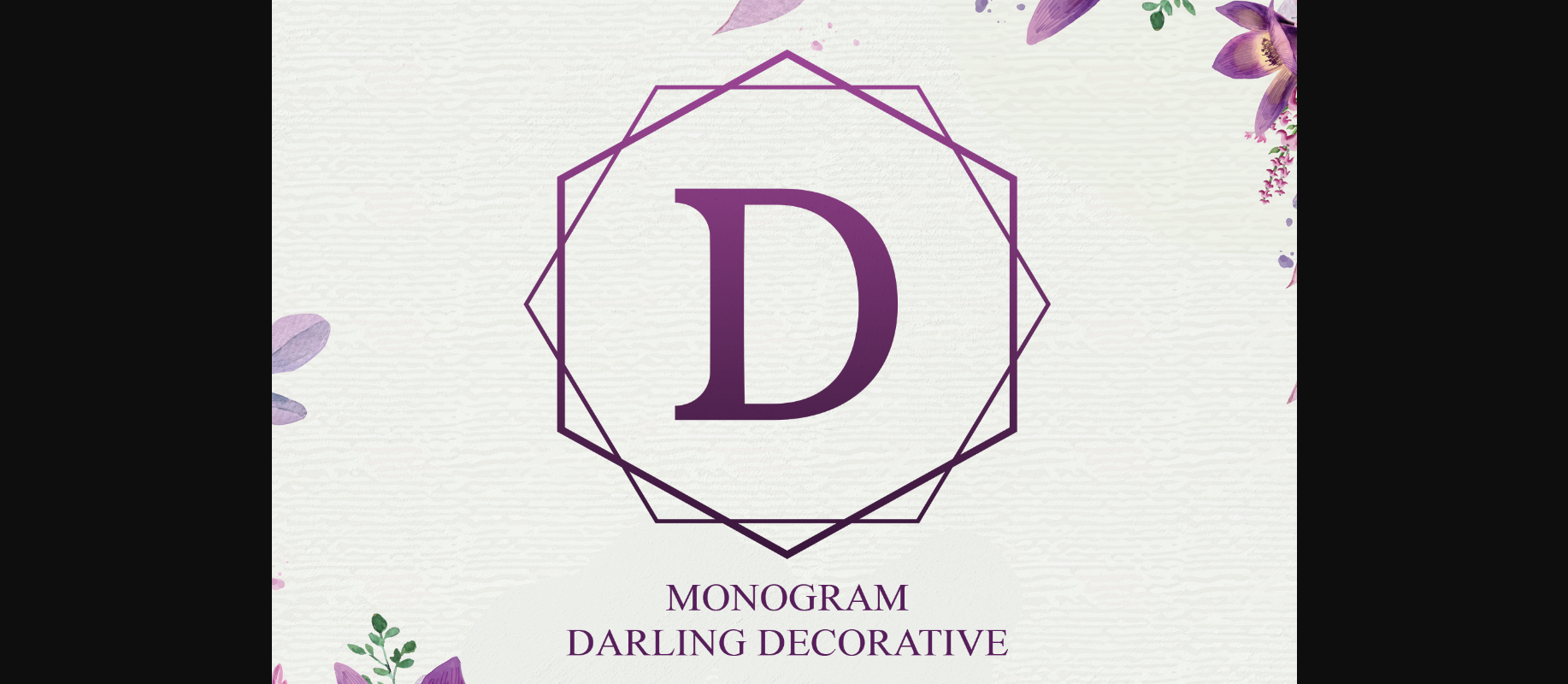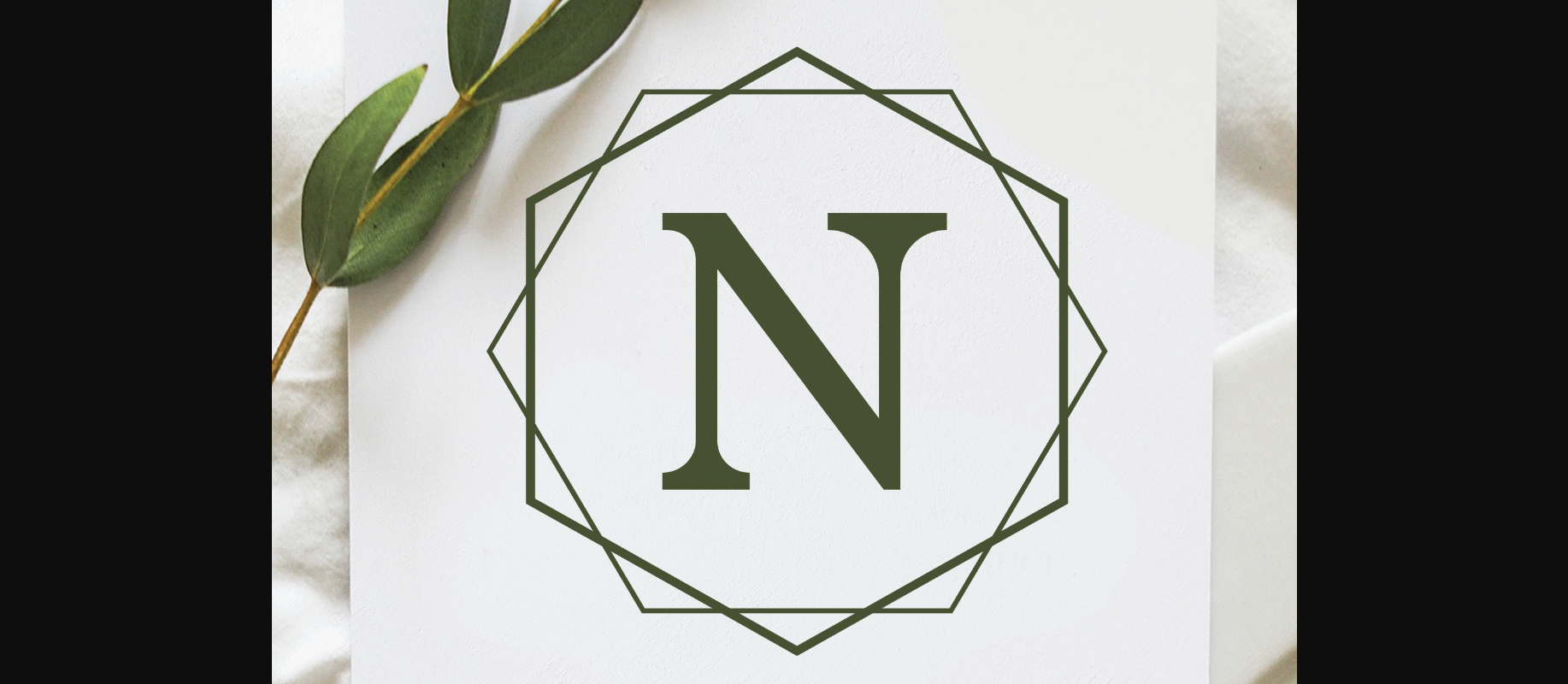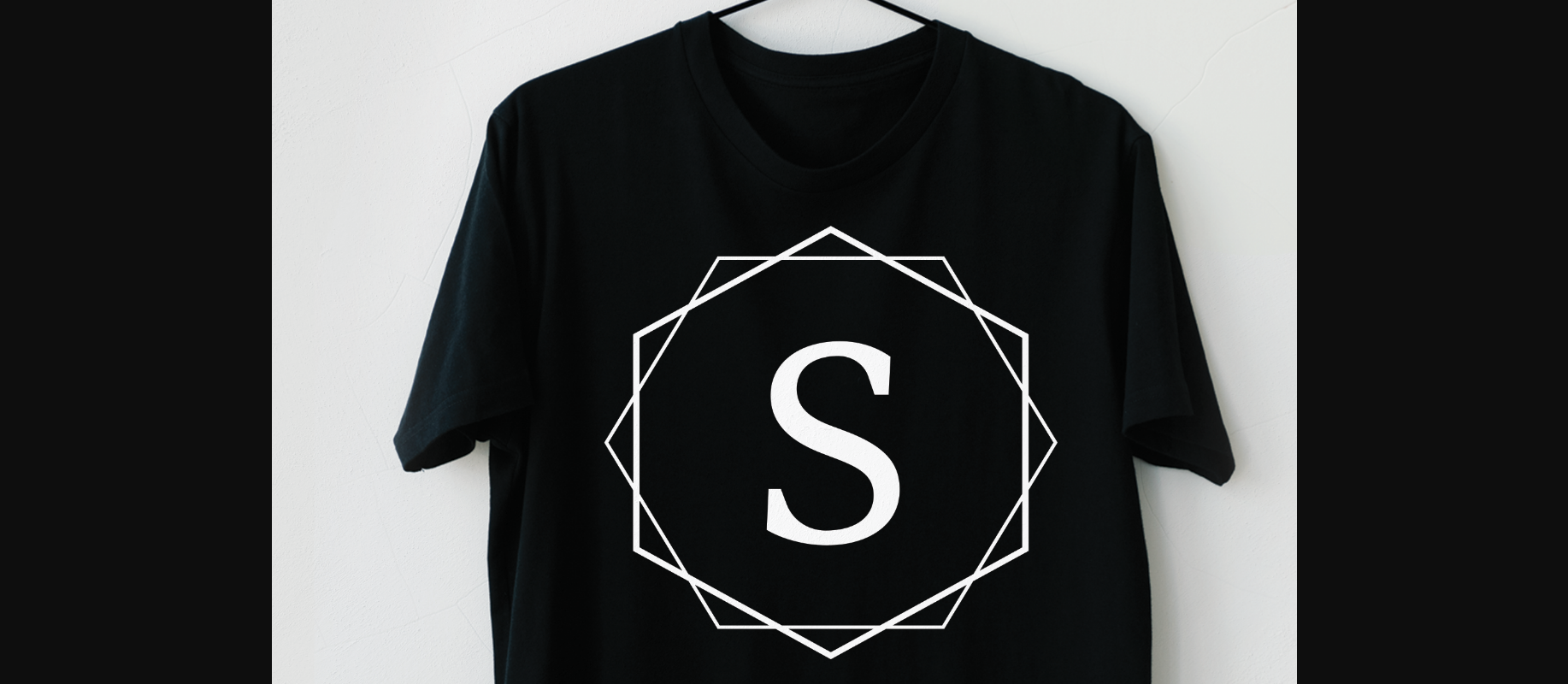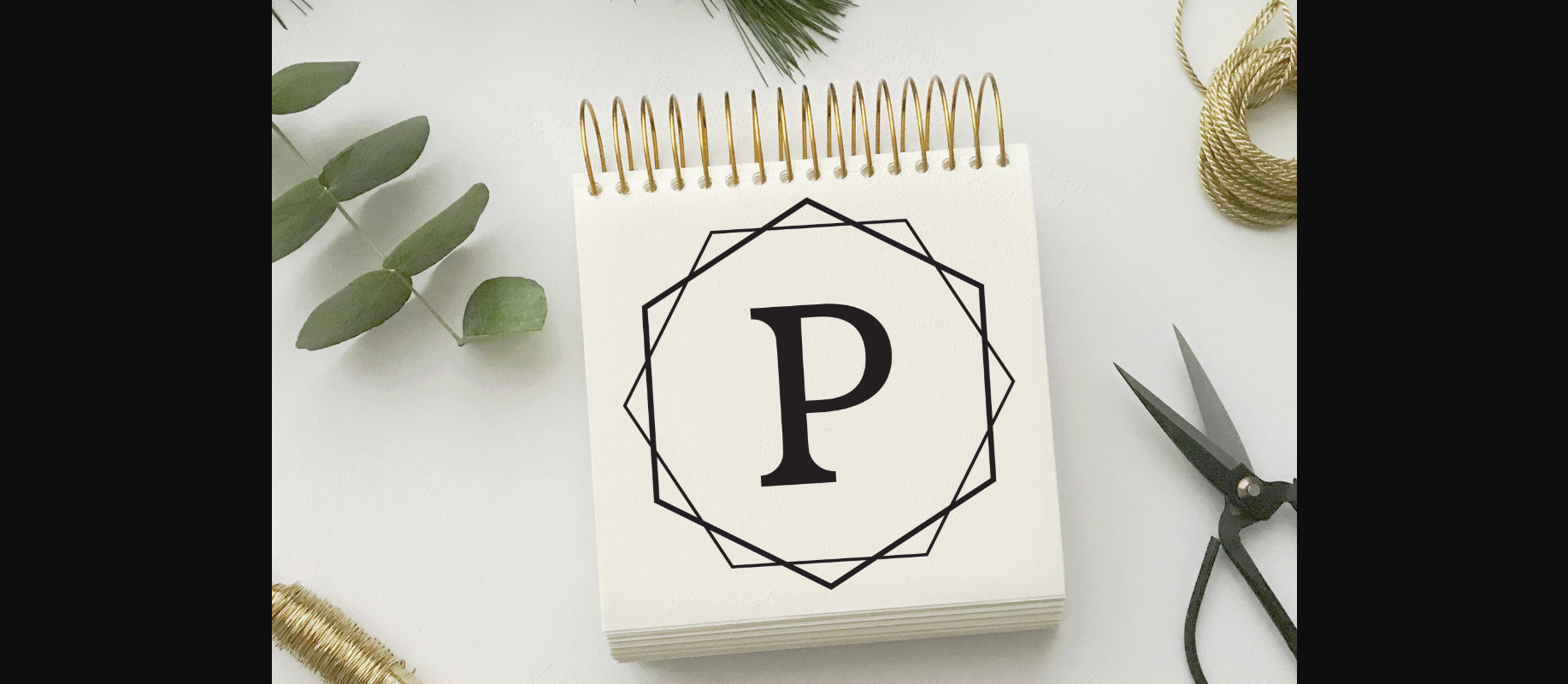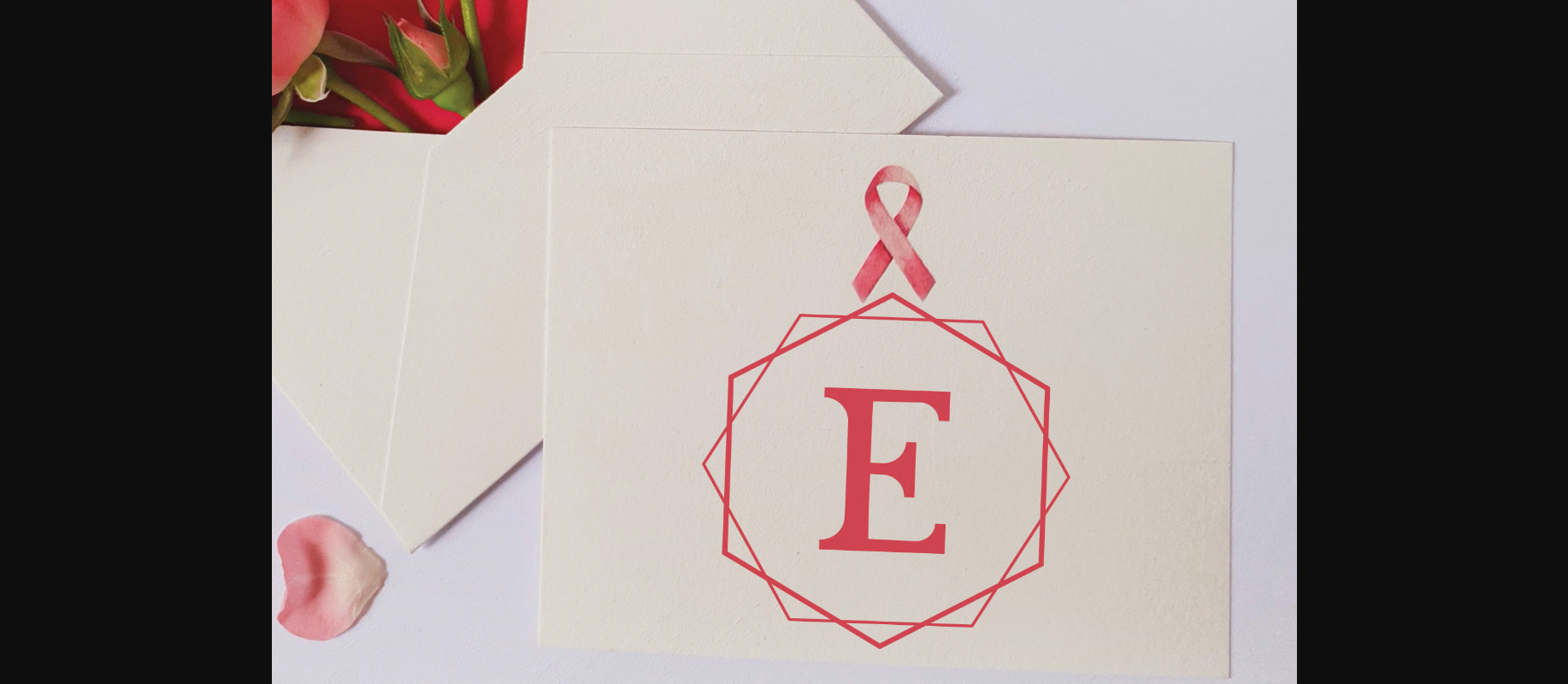
HomeDecorative FontsDarling Font Decorative Fonts Darling Font FacebookXPinterestWhatsApp 1 of 7 ... Darling Font Poster 2... Darling Font Poster 3... Darling Font Poster 4... Darling Font Poster 5... Darling Font Poster 6... Darling Font Poster 7... About Darling Font Darling is a beautiful and elegant decorative font. Add this romantic and lovely looking font to each of your love letters, wedding invitations or favorite design ideas, and you will be astounded by the outcome. DOWNLOAD NOW People also explored Senlot Serif Blue Daisy Font Friendship Font Red Giant Font Creative Font Spooky Inside Font Bebold Font Banana Font Hatterful Amalia Font 310 0 TagsDarlingDarling Font Previous articleButterfly FontNext articleFlower Font LEAVE A REPLY Cancel reply Comment: Please enter your comment! Name:* Please enter your name here Email:* You have entered an incorrect email address! Please enter your email address here Website: Save my name, email, and website in this browser for the next time I comment. Personal Use Free Token No 721 Personal Use Free Read more about this font Fifteenth Century Personal Use Free Read more about this font New System Personal Use Free Read more about this font Persephone Free Personal Use Free Read more about this font BLOG How to Install and Use Fonts on Windows, macOS, and Web Projects How to Install and Use Fonts on Windows, macOS, and Web Projects Fonts are a crucial part of design and branding. Whether you’re designing a... Using Fonts in Digital Marketing: Tips to Strengthen Your Brand Identity How to Cut Any Font on Cricut: Convert a Font to SVG (Free) Elegant Wedding Invitation Fonts – Handwritten & Script Fonts